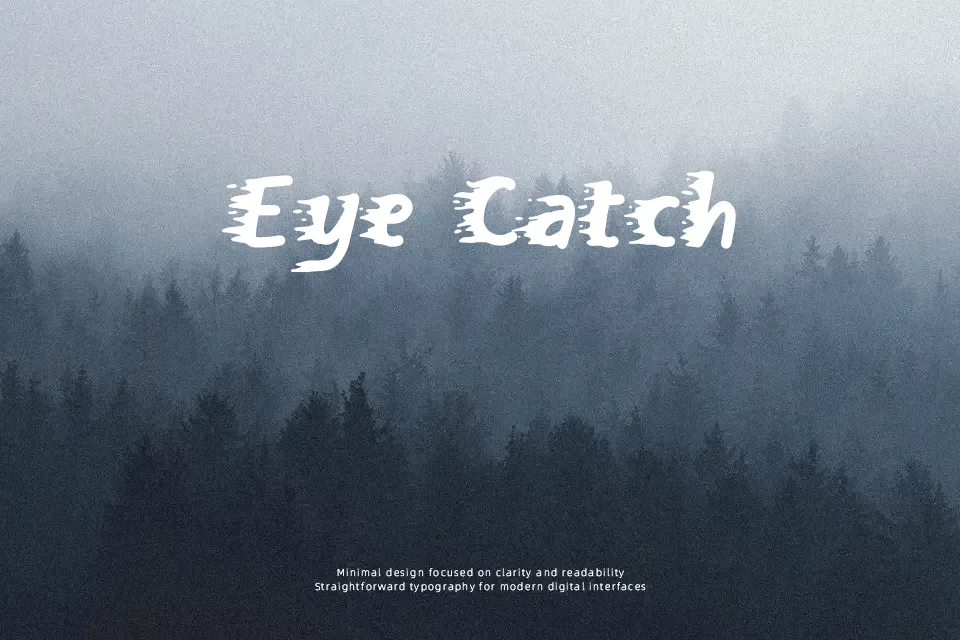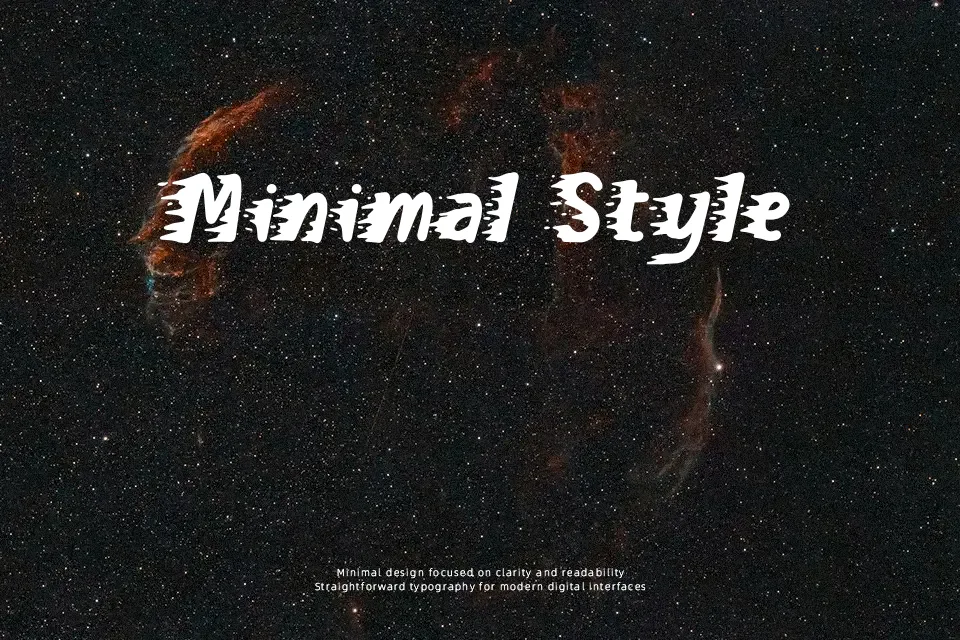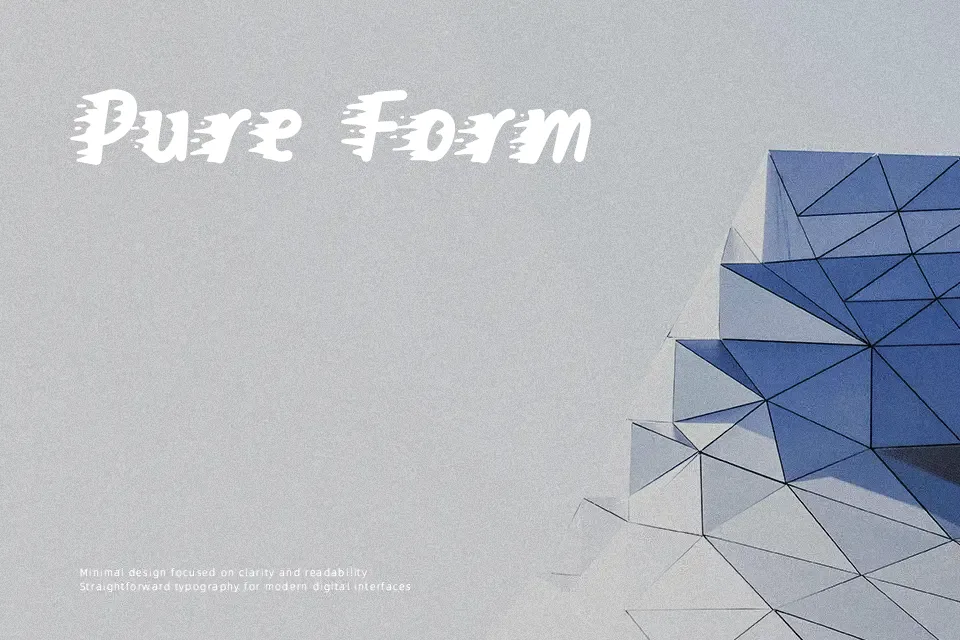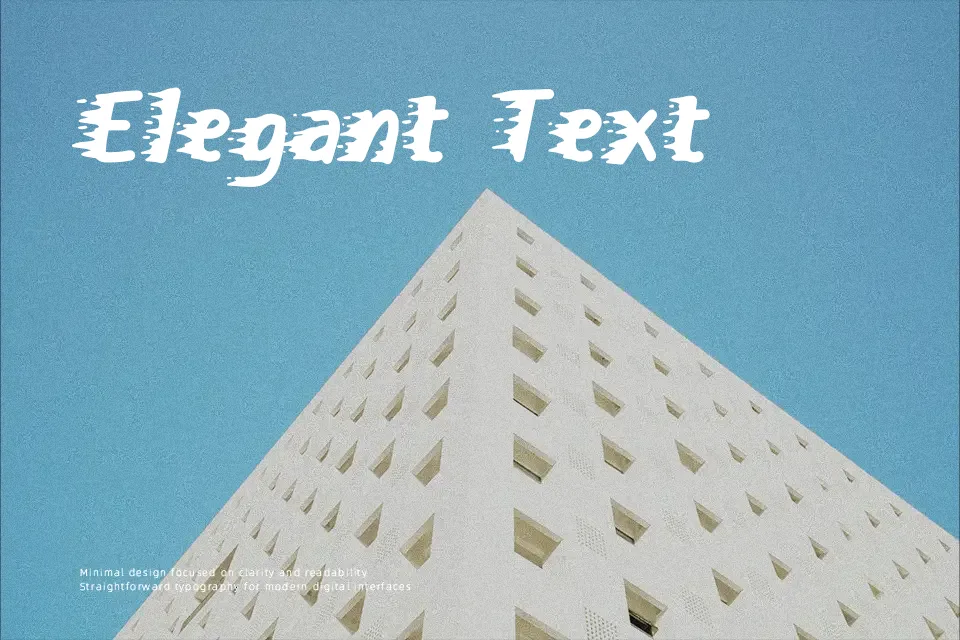
On Fire Font
On Fire Font uses heavy display letterforms with irregular flame-like edges and a dense, decorative silhouette. The strokes appear thick with limited contrast, while the compact proportions create a strong block of text in uppercase-led layouts. Spacing is best kept generous enough to preserve each character’s outline, especially in short words. It works naturally for spicy-food labels, event posters, and dramatic social media graphics. The typeface has strong visual impact at large sizes, but its detailed edges become harder to distinguish in small captions. It is a practical choice when the headline needs atmosphere rather than quiet readability.
Best For: spicy food packaging,restaurant menu headers,themed event posters,social media headlines
Perfect for headline, packaging, and poster, with a bold and decorative style.